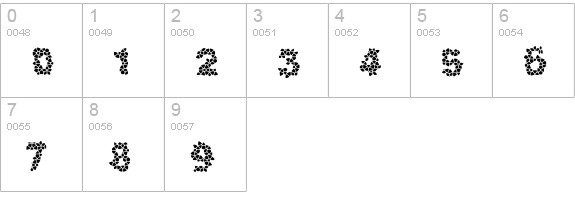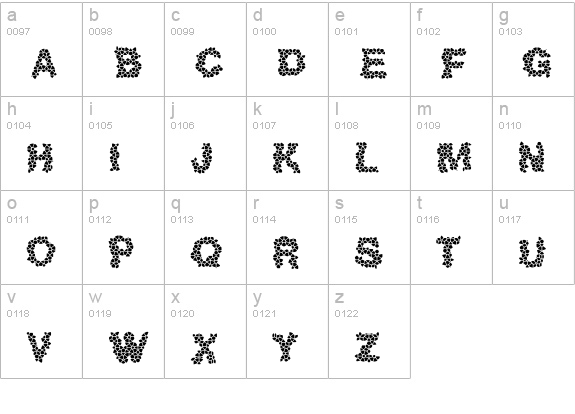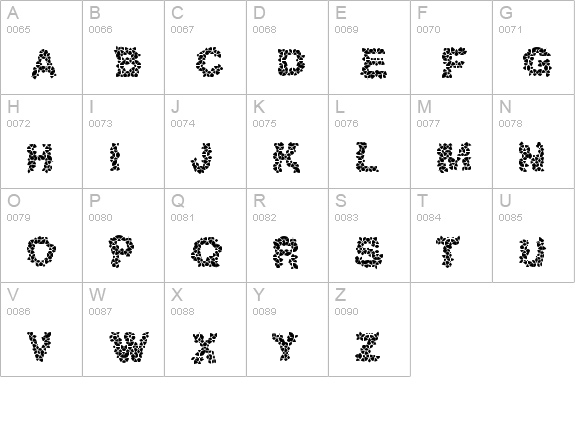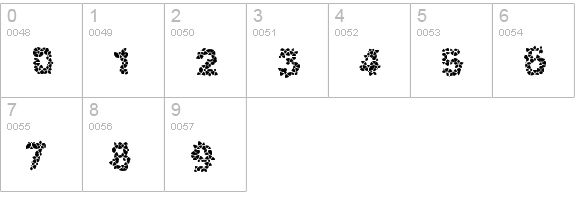
GaudiTiles Font Details
GaudiTiles font is a unique and artistic typeface inspired by the intricate tile work of renowned architect Antoni Gaudí. Its whimsical and playful design adds a touch of creativity to any project. The font features intricate patterns and details that make it stand out from traditional typefaces. GaudiTiles is perfect for posters, branding, and any design project that calls for a touch of originality. The best part? GaudiTiles font is available for free download at FontsMarket.com. So go ahead and add this one-of-a-kind font to your collection today!